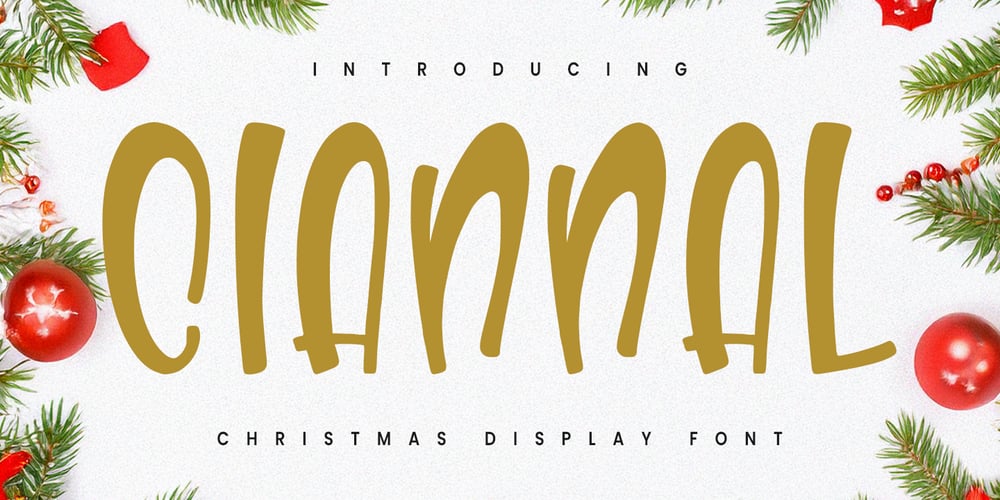
MC Ciannal
MC Ciannal font
MC Ciannal Font Family was designed by Gilang Maulana and published by Maulana Creative. MC Ciannal contains 1 styles and family package options. Ciannal is a handwritten sans christmas display font. With smooth and handwritten stroke, fun character with a ligatures. To give you an extra creative work Ciannal font support multilingual more than 100+ language. This font is good for logo design, Social media, Movie Titles, Books Titles, a short text even a long text letter and good for your secondary text font with sans or serif. Make a stunning work with Ciannal font.